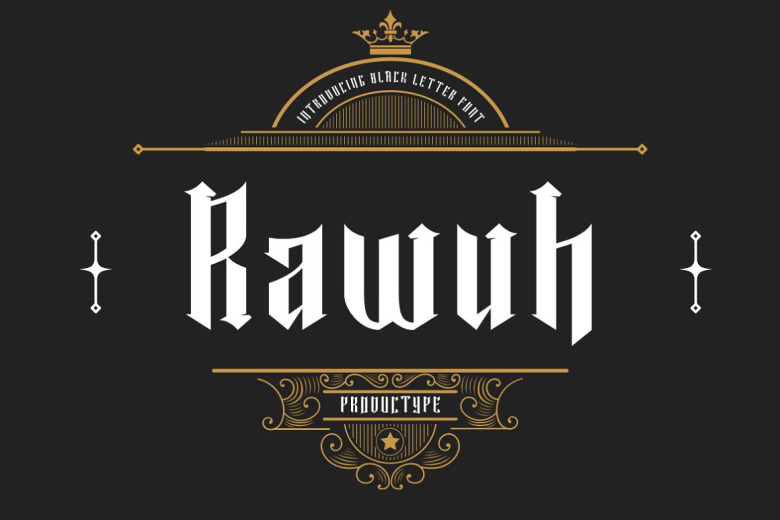
Rawuh Font
This Rawuh font feature is a unique type of gothic blackletter tattoo. If you want a little self-respect and flair of taste, then this is the font for you. It was designed specifically for elegant, cleancut logos that convey the message without any fuss or frills – and now so can yours.
Rawuh Font goes in perfect unison with anything Gothic you want tattooed on you do. Likewise, blackletter style fonts are used everywhere from tattoo labels to product packaging and branding. So with such an awesome font as this at your fingertips, can’t you just imagine creating incredible projects?
Rawuh Blackletter Tattoo Font